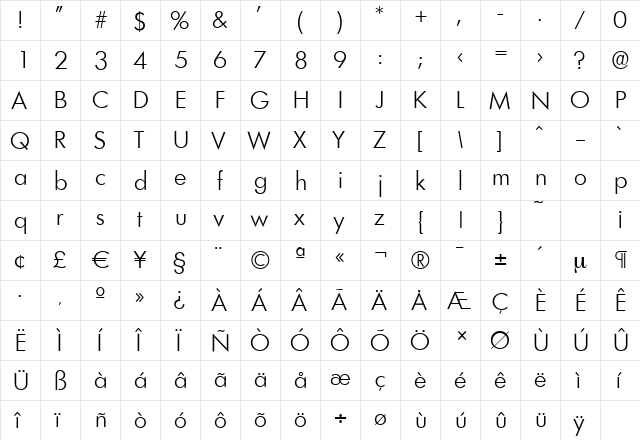
LimerickSerial-Light Regular
Design Context for LimerickSerial-Light Typeface
LimerickSerial-Light offers clean, dependable letterforms without strong stylistic allegiance, making it a practical choice for designers who need flexibility. The delicate stroke weight brings airiness and refinement to layouts.
Pro Tip: Pair LimerickSerial-Light with a font of contrasting weight or personality to build a more expressive typographic hierarchy.